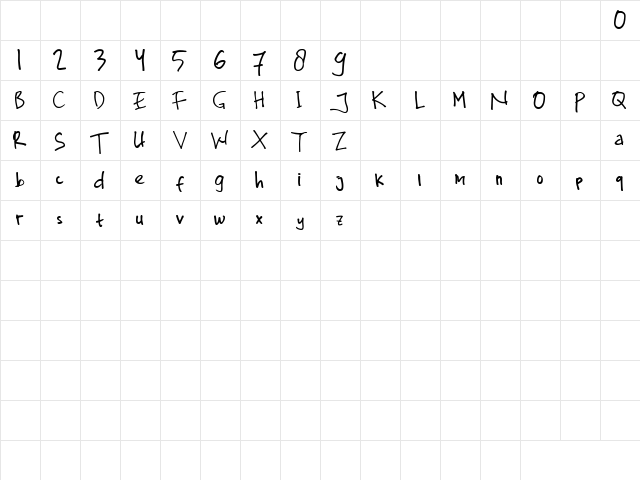
Megaponn Regular
Design Context for Megaponn Typeface
Megaponn is a composed and adaptable typeface that performs quietly and consistently across a wide range of design contexts.